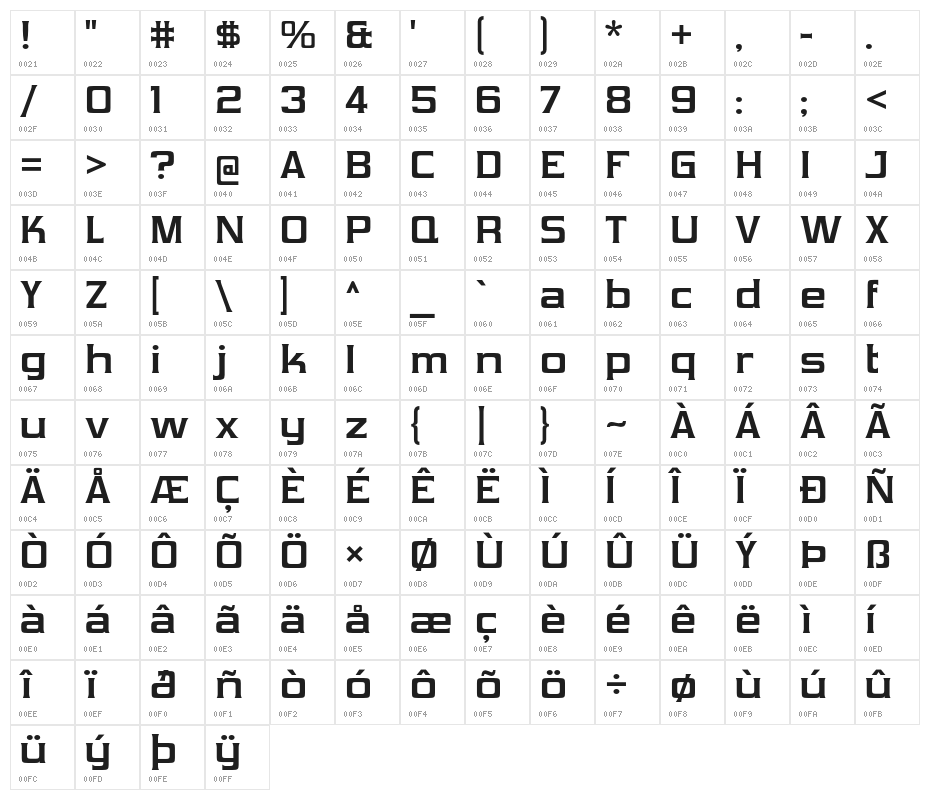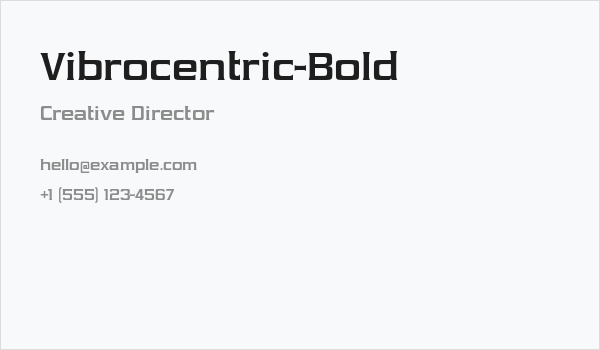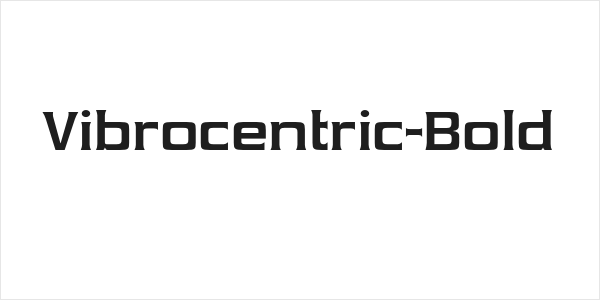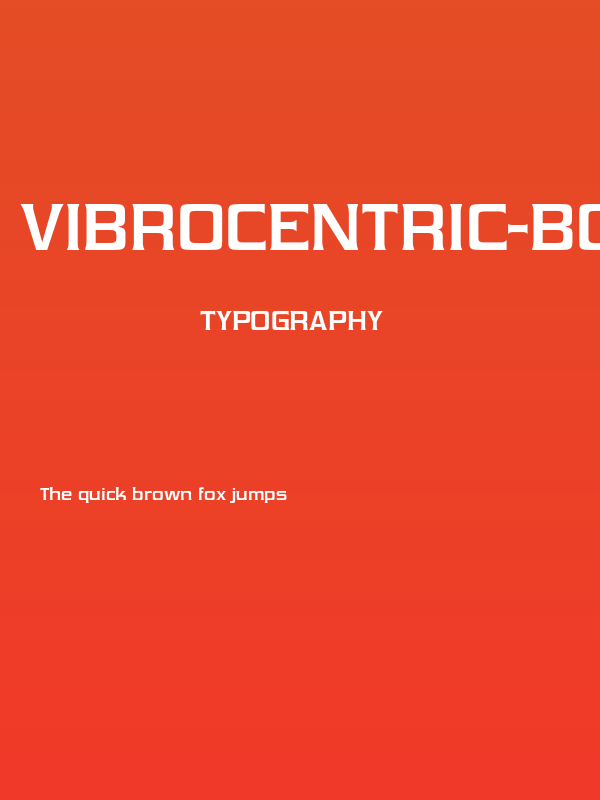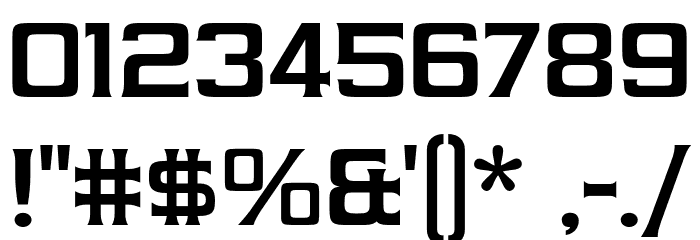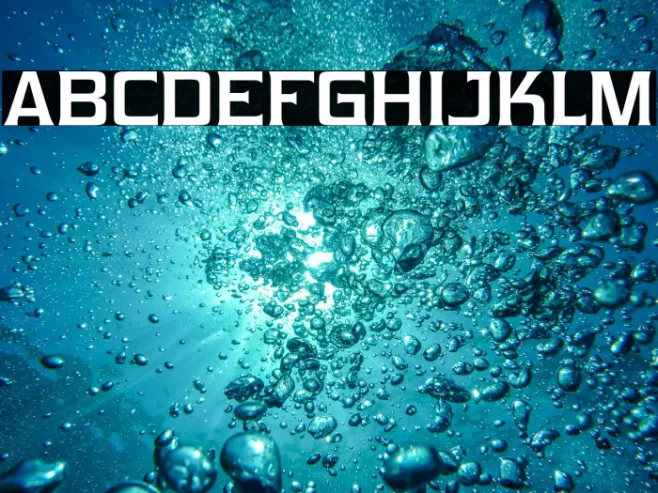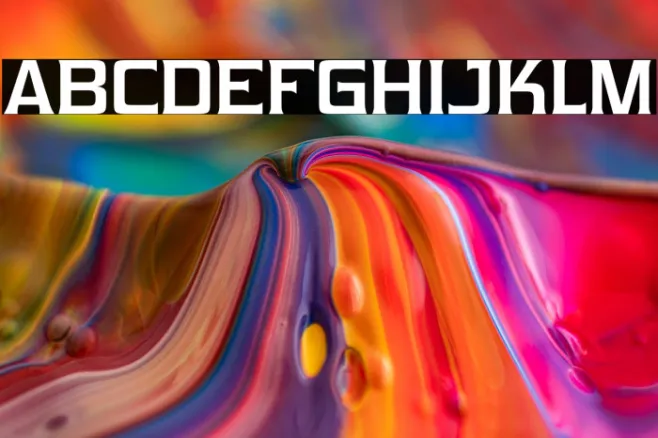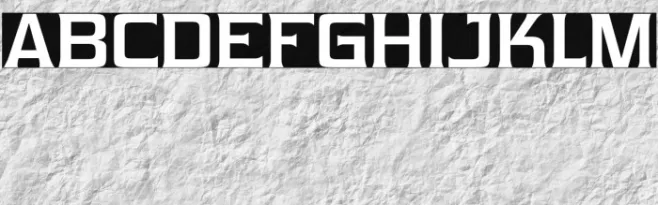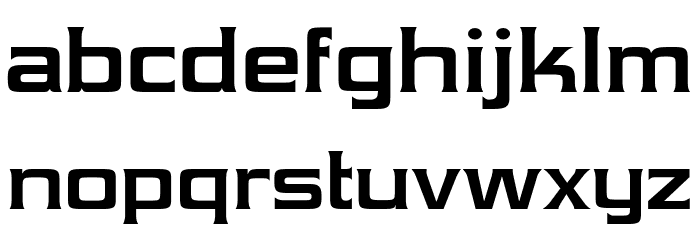
Vibrocentric-Bold Font
Vibrocentric-Bold Description
This font features a bold, geometric design with a modern and industrial feel. The characters are constructed with sharp angles and straight lines, giving it a strong and assertive appearance. The uppercase letters are particularly striking, with a uniform height and width that create a cohesive look. The lowercase letters maintain the same boldness, with a slightly more rounded approach that adds a touch of softness to the overall design. The numerals are consistent with the alphabet, providing a seamless integration. Special characters are included, maintaining the same bold and structured style. This font is ideal for projects that require a strong visual impact.